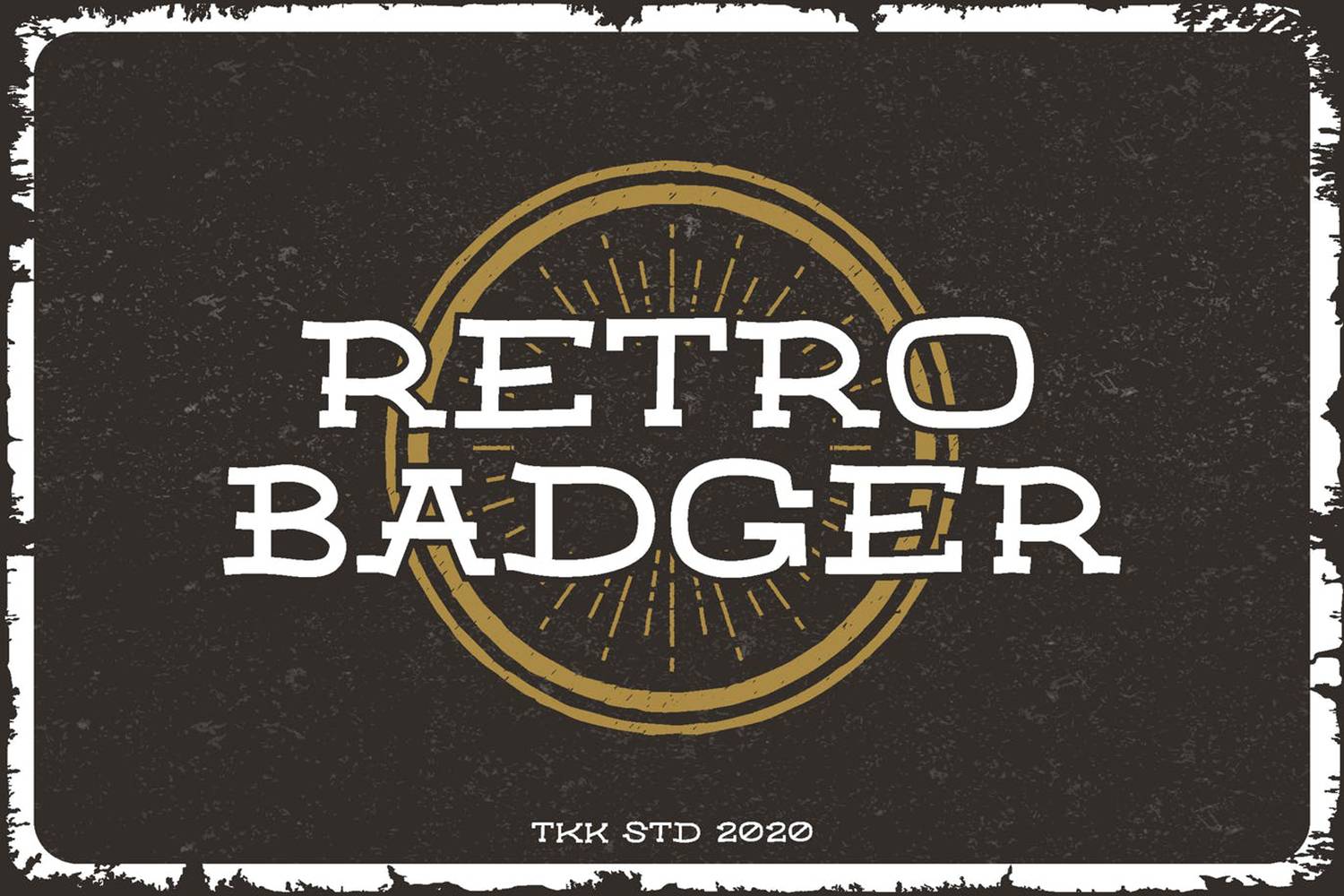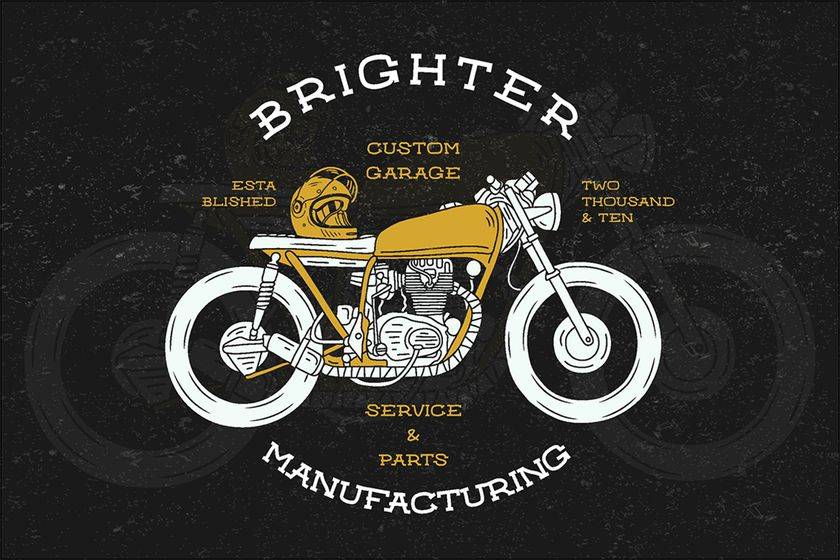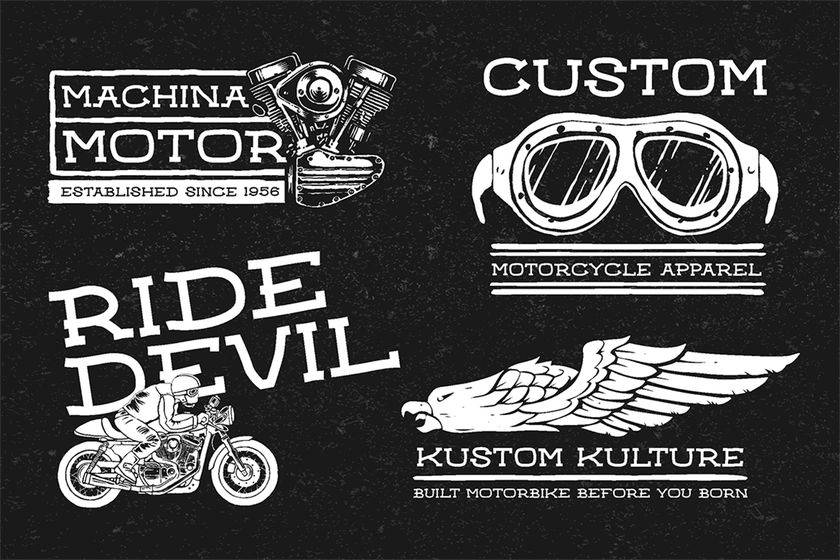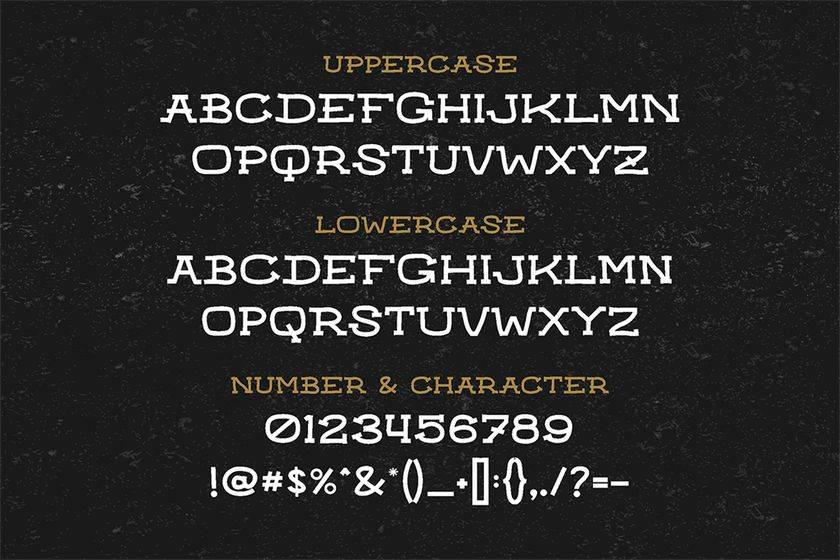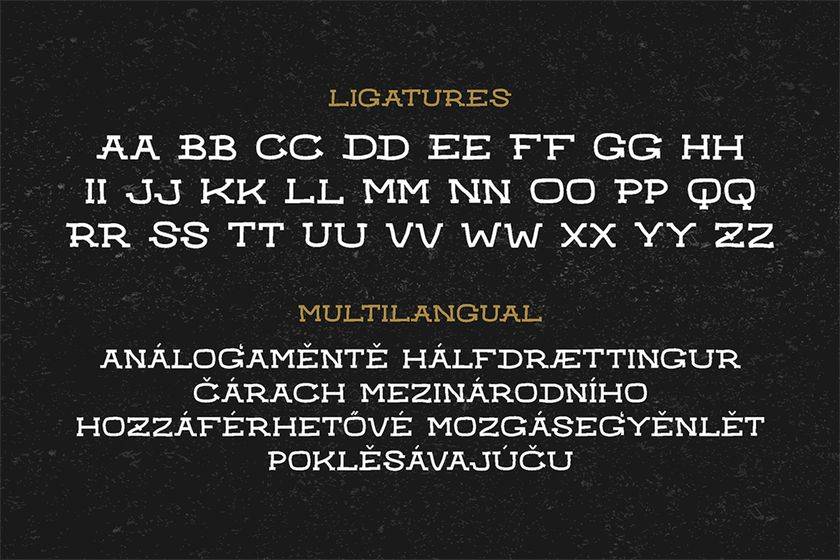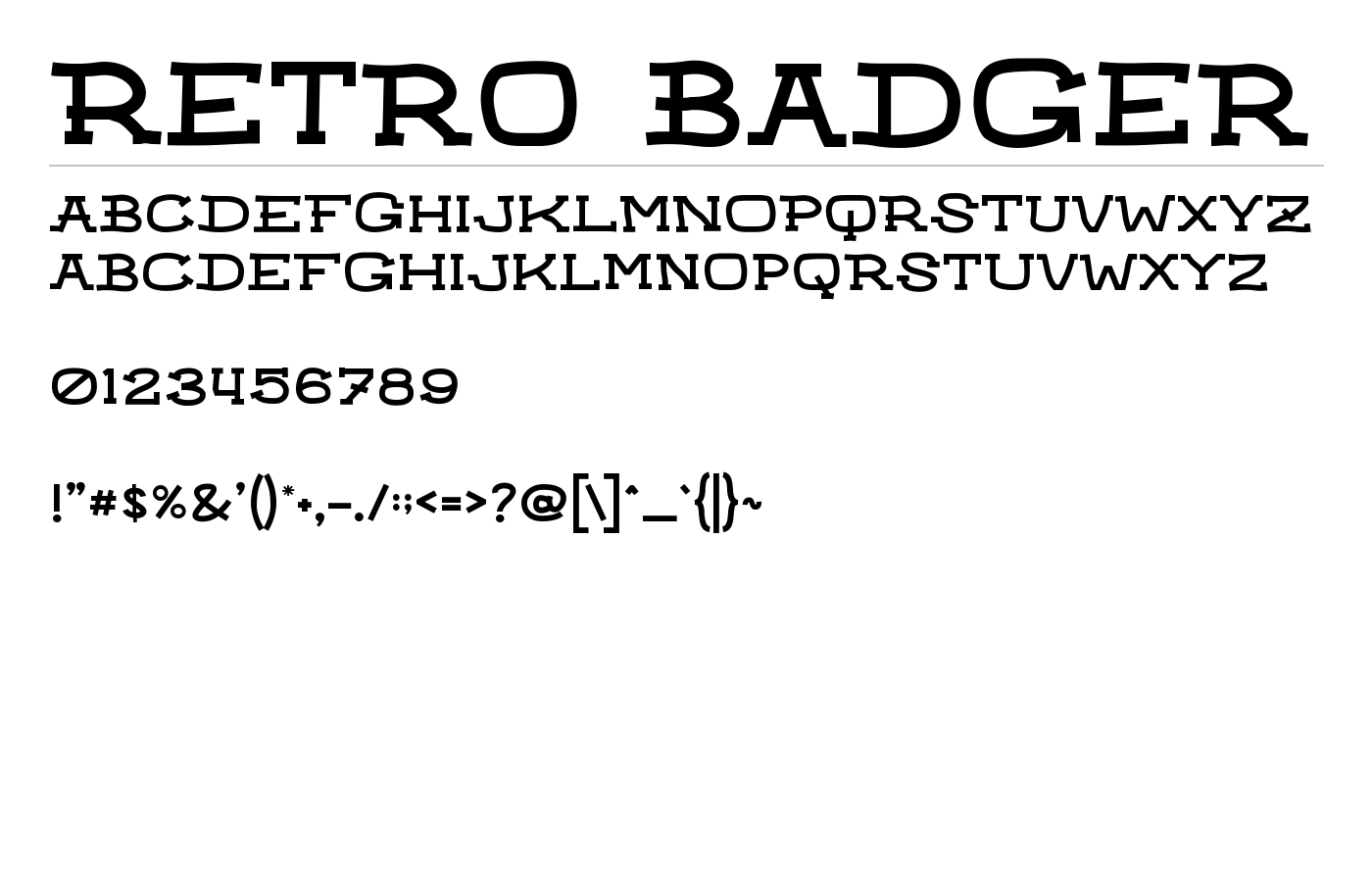
Retro Badger is a bold serif font with a playful, vintage vibe, featuring thick, slab-like serifs and uneven, quirky letter shapes that add character and charm. Its sturdy weight and wide letterforms make it ideal for creating eye-catching headlines, logos, and posters where a fun yet confident personality is desired. This font works especially well for brands or designs seeking a nostalgic, handcrafted feel with a touch of whimsy.
Retro Badger Font
About Retro Badger Font